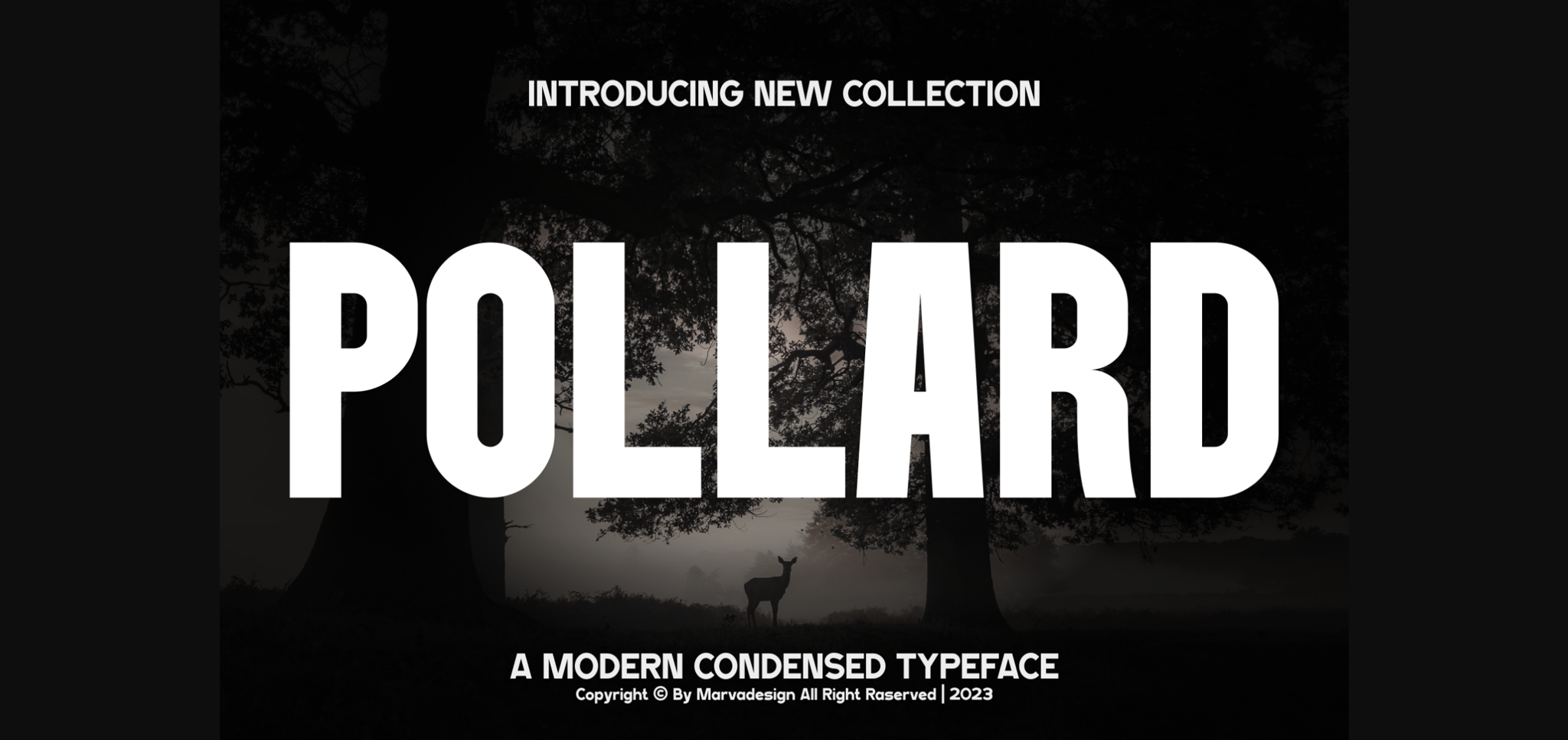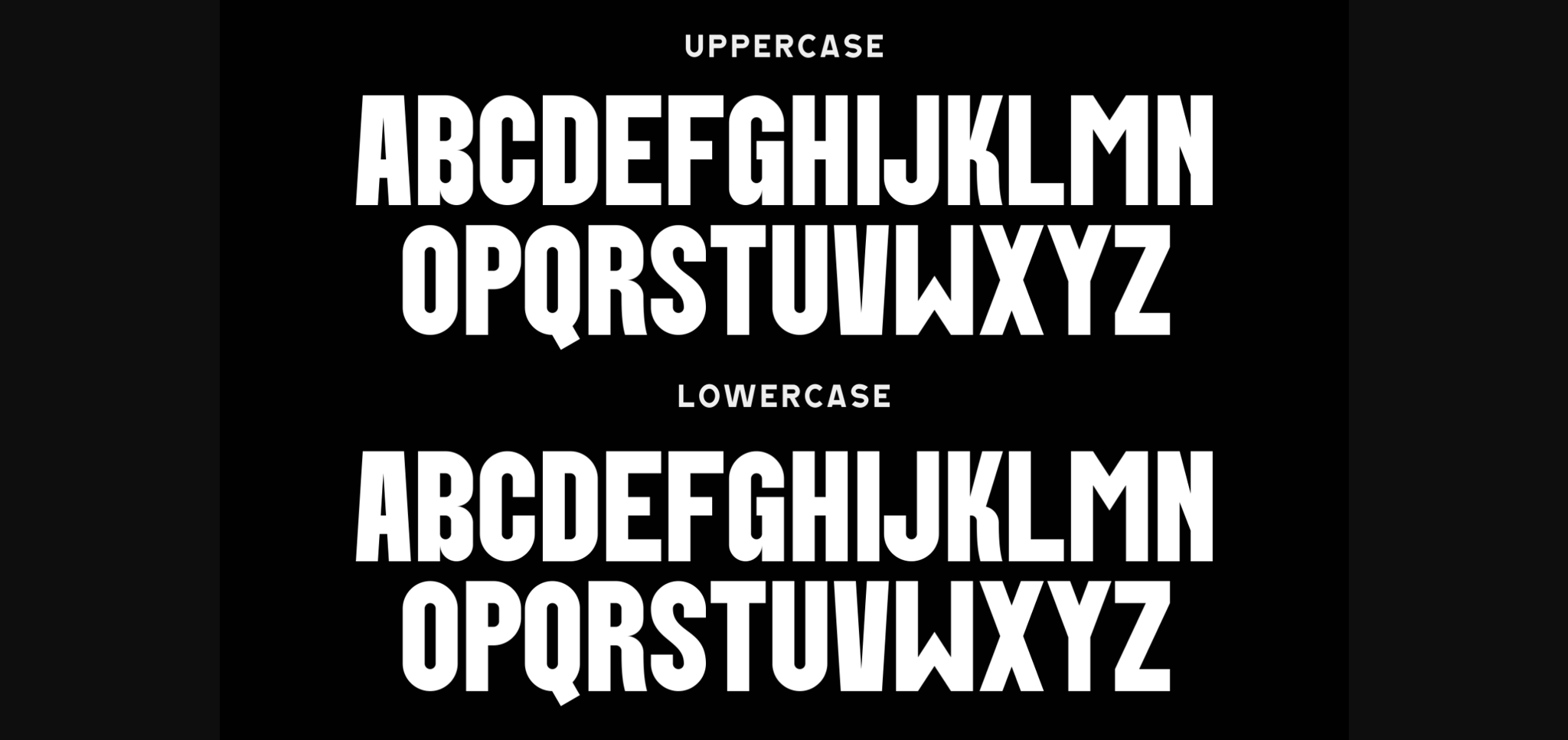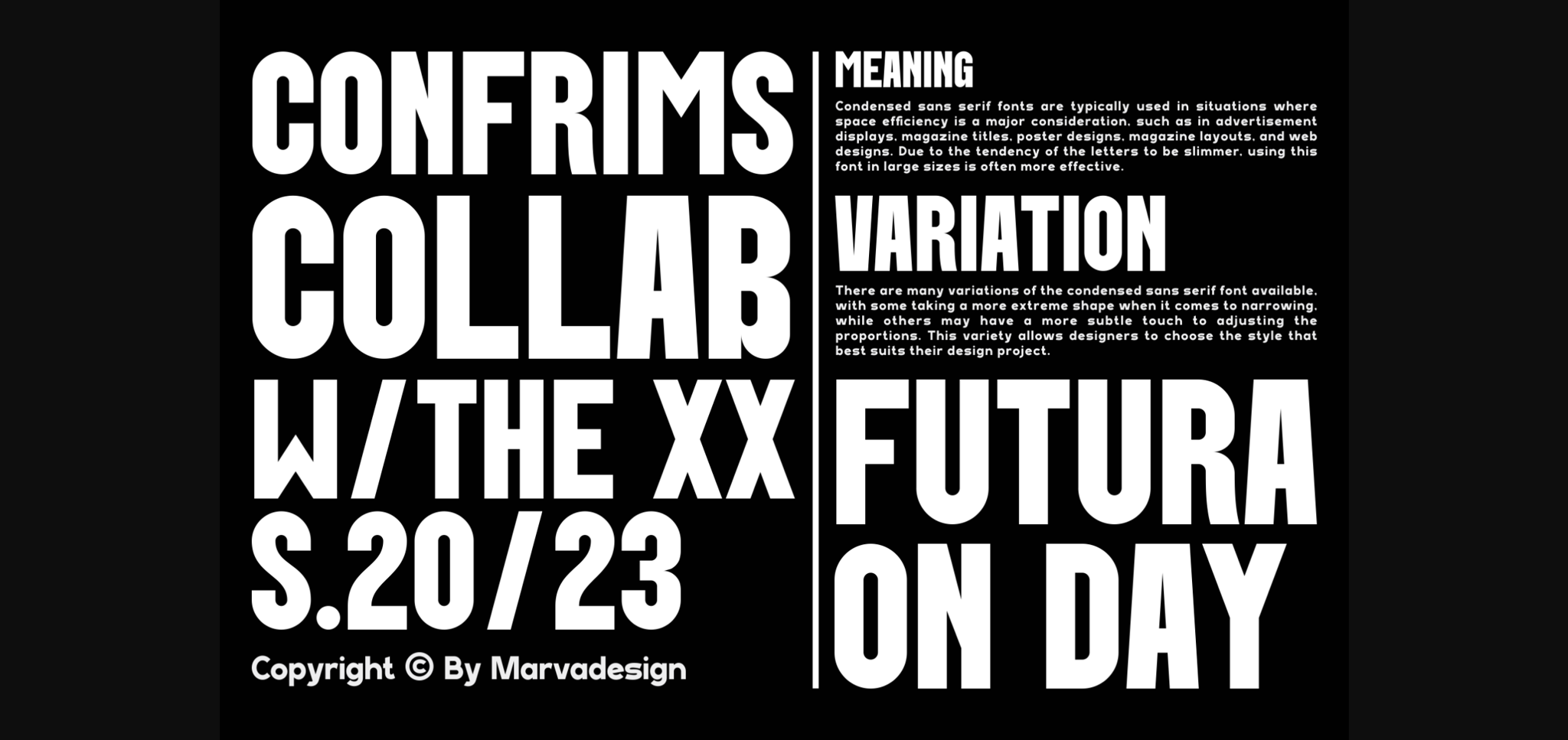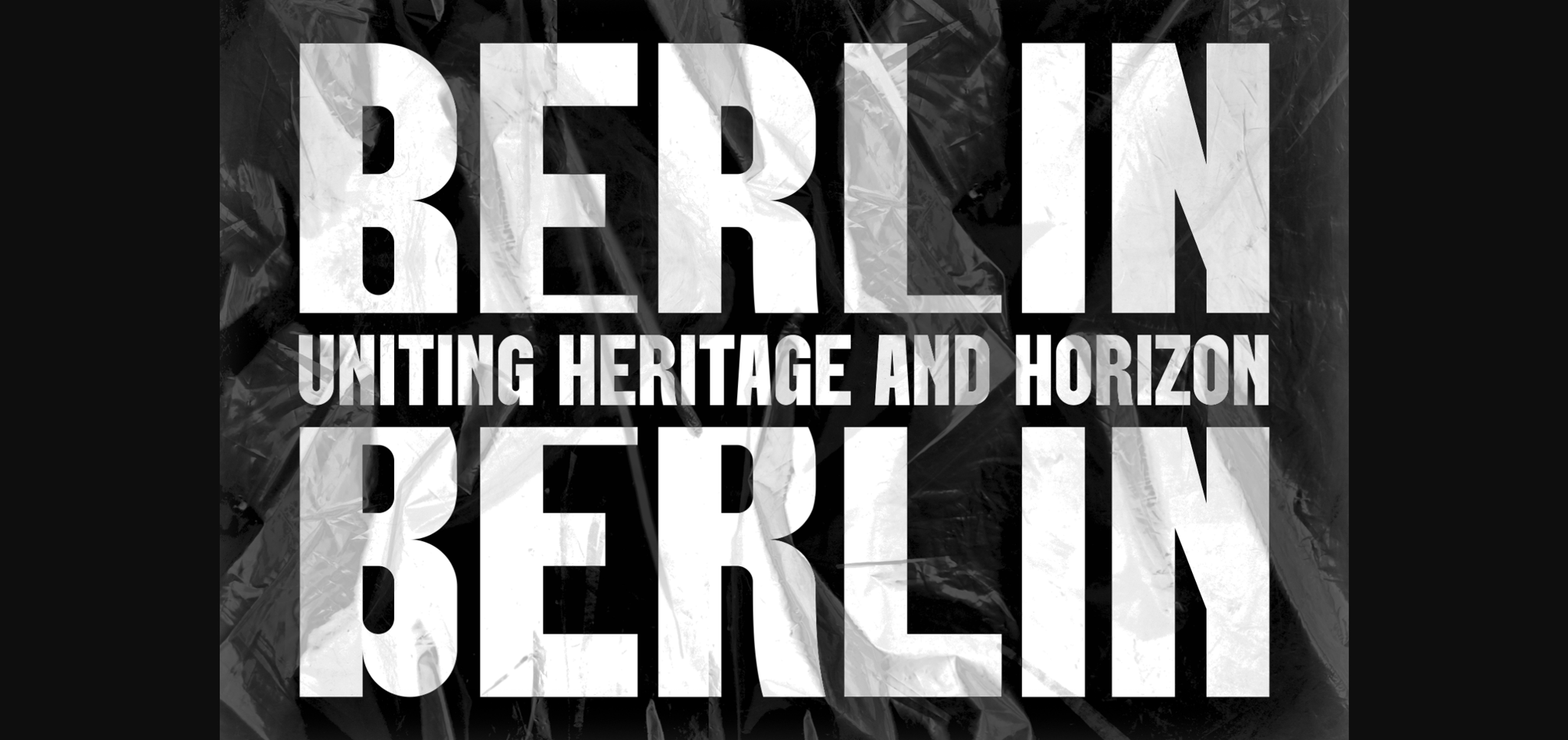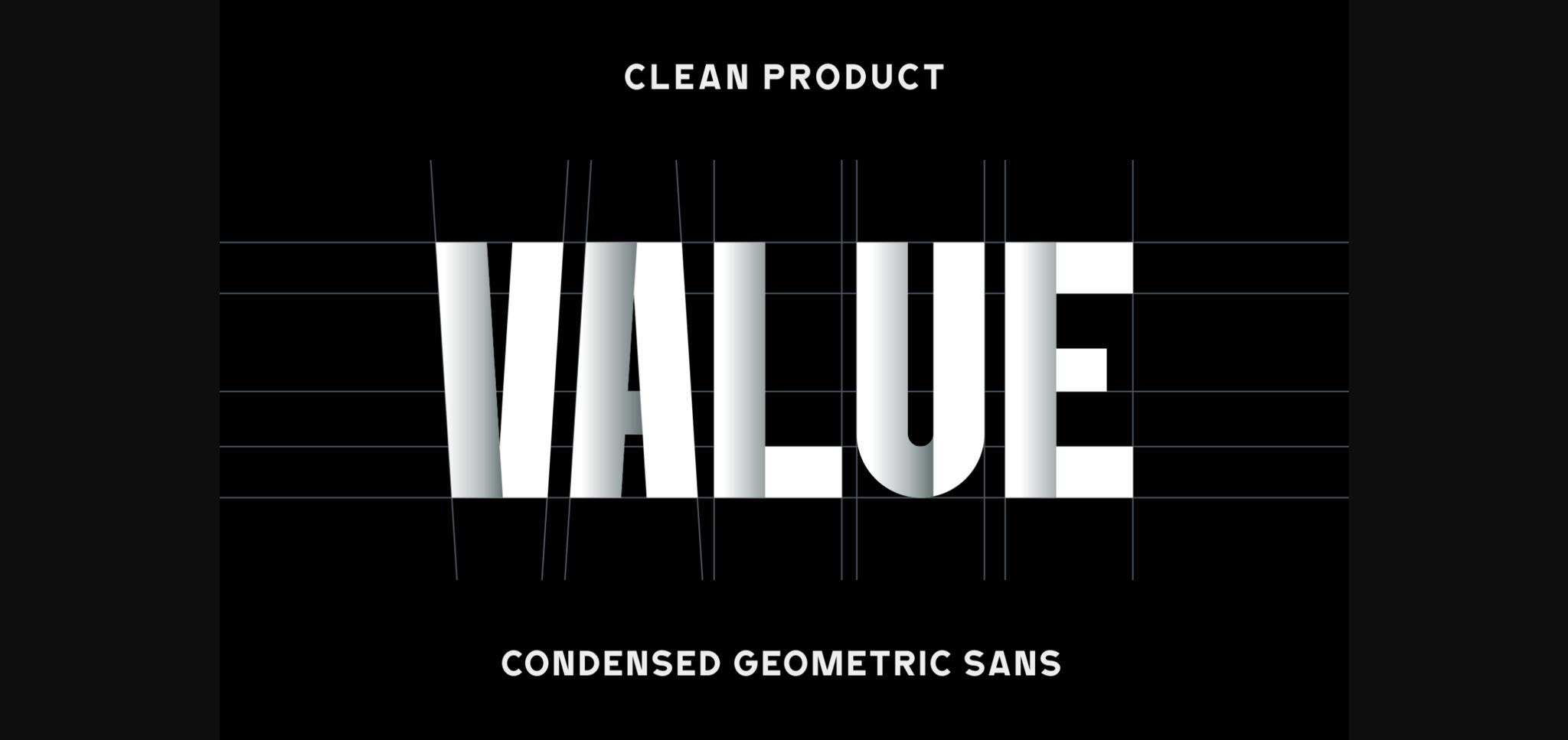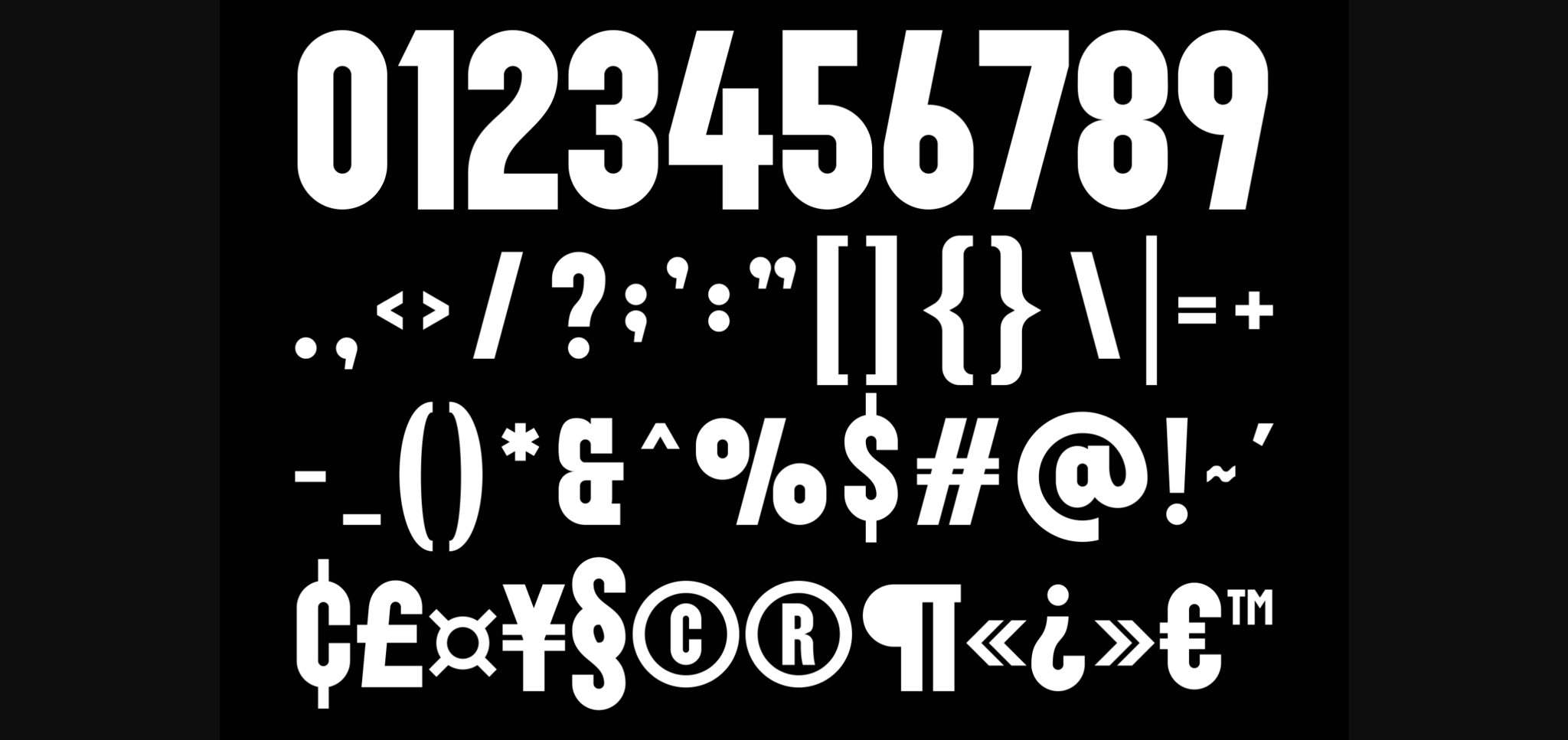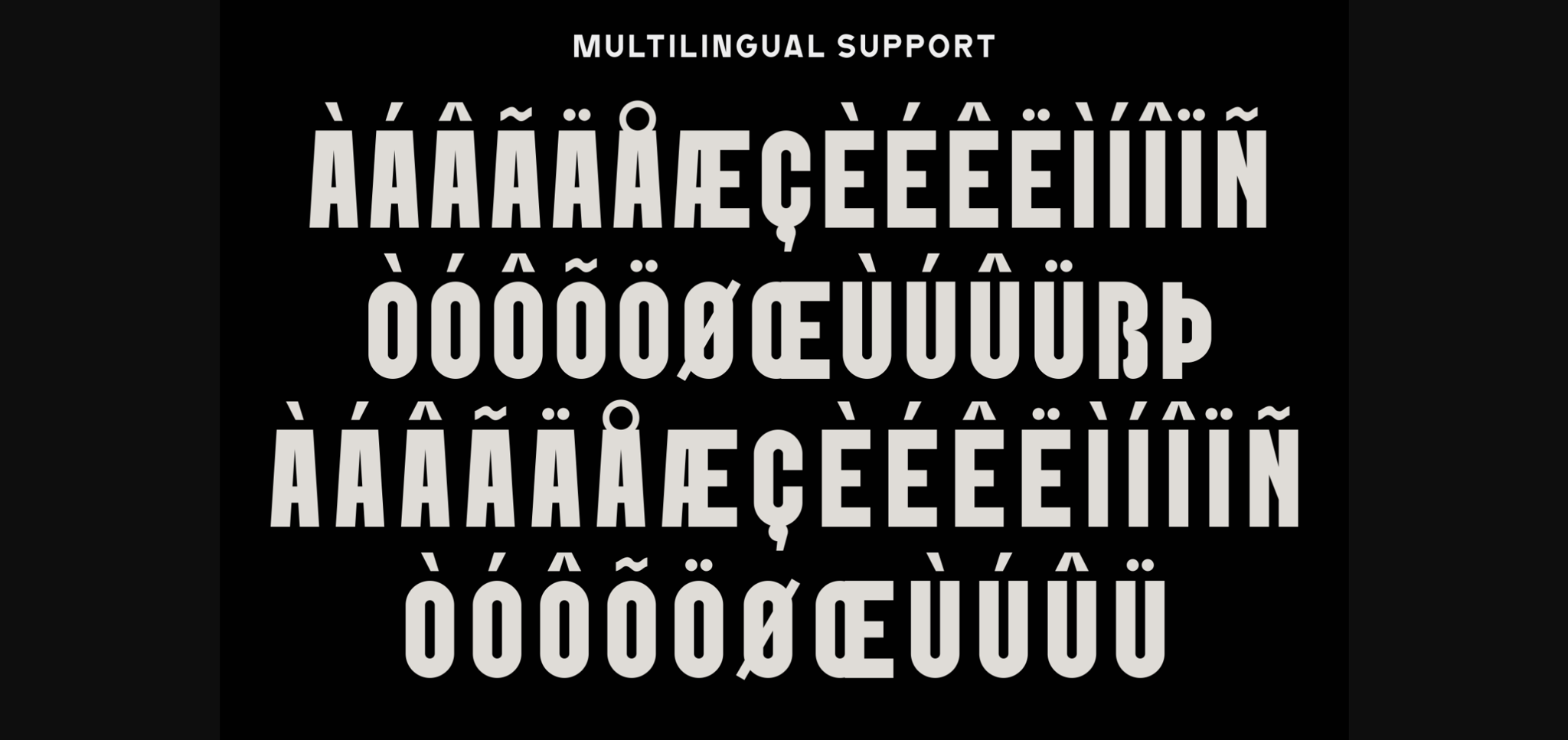
Pollard Font
About Pollard Font
Pollard is a modern, neat sans-serif font designed for clarity and versatility. With clean lines and balanced proportions, it offers a contemporary aesthetic suitable for a wide range of applications. From branding to editorial design, this font brings a sense of professionalism and sophistication to any project.